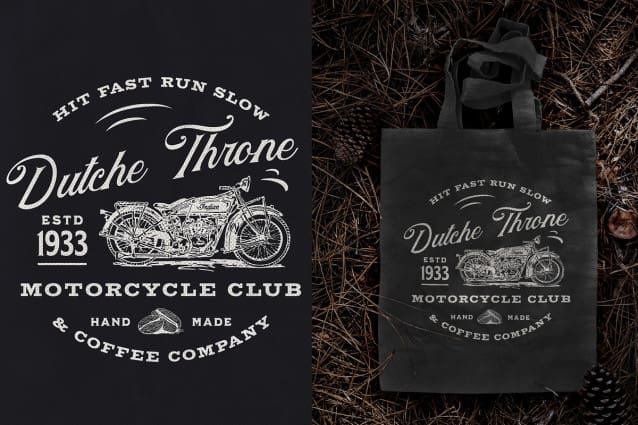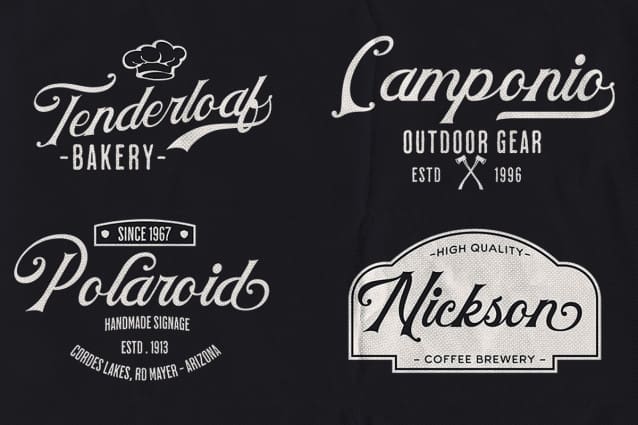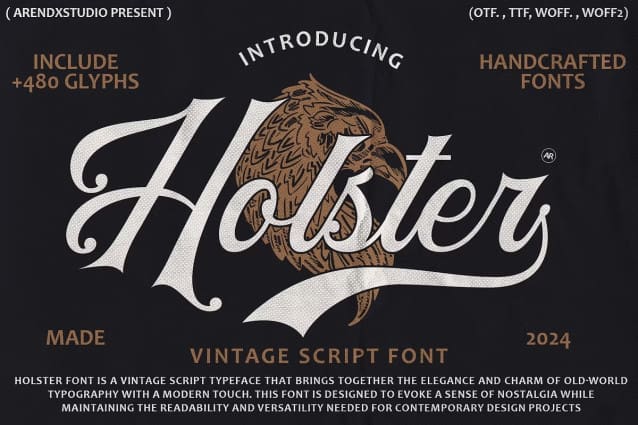
Holster Font
Holster Font is a vintage script font that brings timeless elegance and classic charm to any project. Its beautiful design and nostalgic appeal make it an excellent choice for a wide range of applications, from branding to wedding invitations. With Holster, every design becomes a work of art, infused with a sense of history and sophistication.